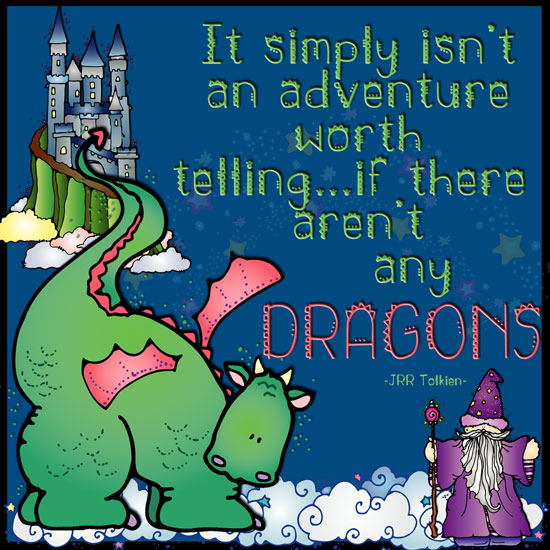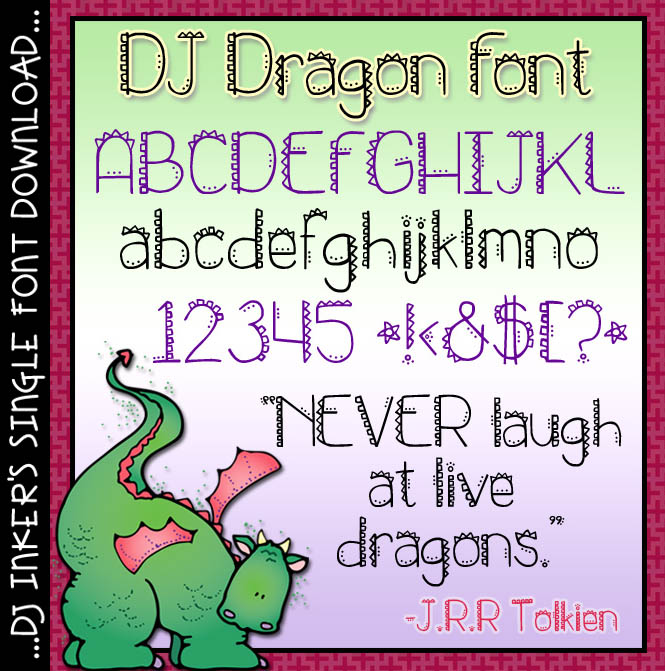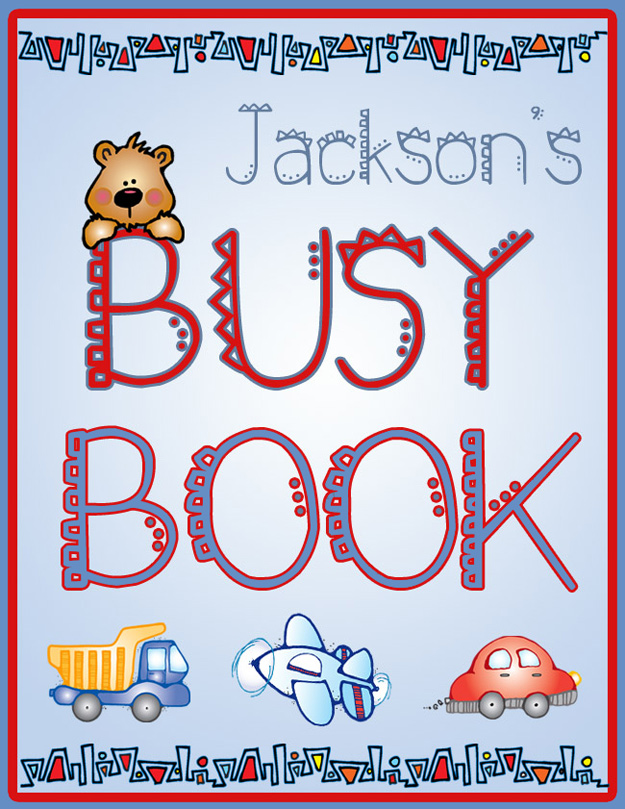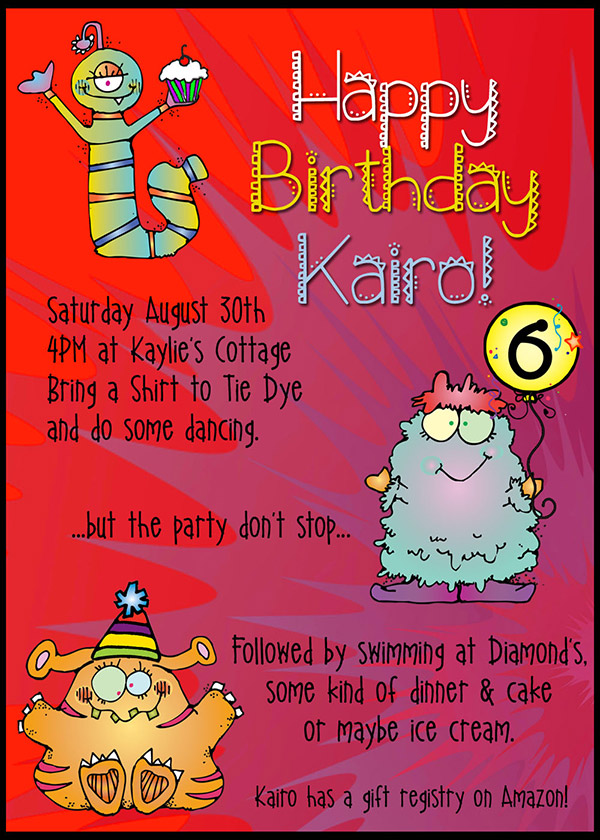
DJ Dragon Font Download
Our playful DJ Dragon font will set your projects on fire!
Use this cool & funky lettering to headline projects full of monsters,
dinosaurs, little boys, dragons & fairytales, parties, game night and
more. Make sure you type nice & large in a big, bold color to suit
the style.
Also includes basic Spanish characters!